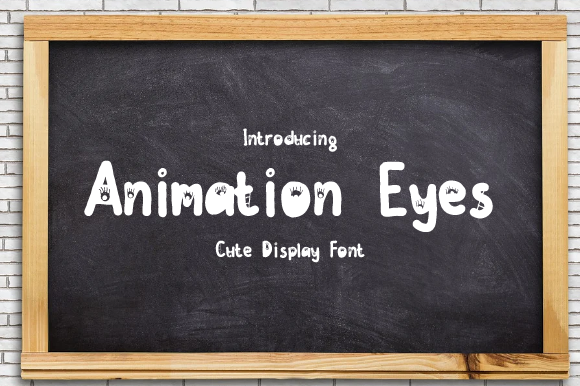
Meet the Font that Brings Personality to Your Designs
Have you ever been stuck on a design project, unable to find the perfect font to match your creative vision? I’m sure you have! We’ve all been there, staring at a blank screen, searching for that one font that will make our design pop. And then, it hits us – a spark of inspiration, a quirky idea, or a fresh perspective. For me, it was the Animation Eyes Font that changed the game.
Designed to add a touch of whimsy to your designs, the Animation Eyes Font is a display font that features adorable eyes as ornaments. Whether you’re creating a children’s book, a social media campaign, or a logo for a quirky brand, this font is sure to bring a smile to your audience’s faces. And for designers, it’s a valuable tool in their arsenal, offering a unique way to express their creativity and stand out from the crowd.
Key Features of Animation Eyes Font
- Unique Characteristics: Animation Eyes Font features a distinctive, animated design with moving eyes that can be used to create engaging and interactive visual effects.
- Font Style: The font is available in both regular and animated styles, allowing designers to choose the look that best suits their needs.
- Character Set: Animation Eyes Font includes a comprehensive set of characters, including uppercase and lowercase letters, numbers, and punctuation marks.
Designer Review: Animation Eyes Font
Overall, I think the Animation Eyes Font has a lot of potential, but it also has some limitations that might make it less appealing to some designers.
- Unique and quirky design: The font’s animation-style eyes give it a fun and playful feel that could be great for projects that need a lighthearted tone.
- Customizable: The font includes various options for customizing the size, color, and animation of the eyes, giving designers a lot of creative control.
- Overly simplistic: The font’s design, while unique, might be too simple for some projects, particularly those that require a more professional or serious tone.
- Limited legibility: In some cases, the animation-style eyes can make the font harder to read, especially at smaller sizes.
- May not be suitable for all languages: The font’s design might not be optimized for languages with complex scripts or non-Latin alphabets.
Overall, I think the Animation Eyes Font is a fun and creative option for designers who need a lighthearted or playful font. However, it may not be the best choice for projects that require a more professional or serious tone.
Use the Animation Eyes Font to add a touch of whimsy and playfulness to your designs. Experiment with different font sizes, colors, and styles to create a unique look.
The Animation Eyes Font is perfect for:
- Children’s books and educational materials.
- Advertising and marketing materials.
- Web design and social media graphics.